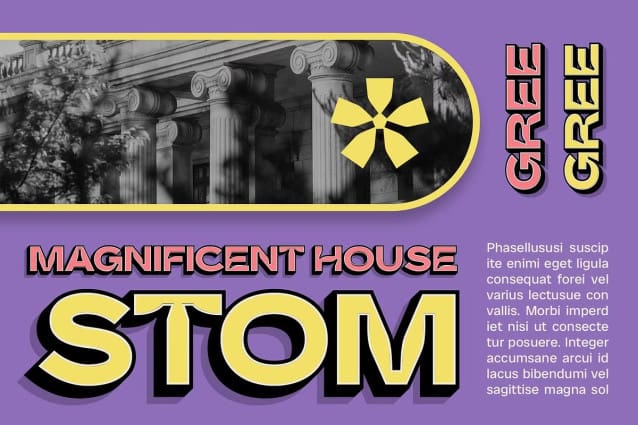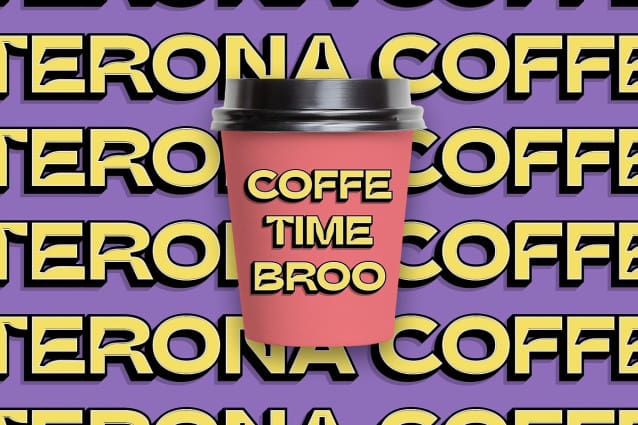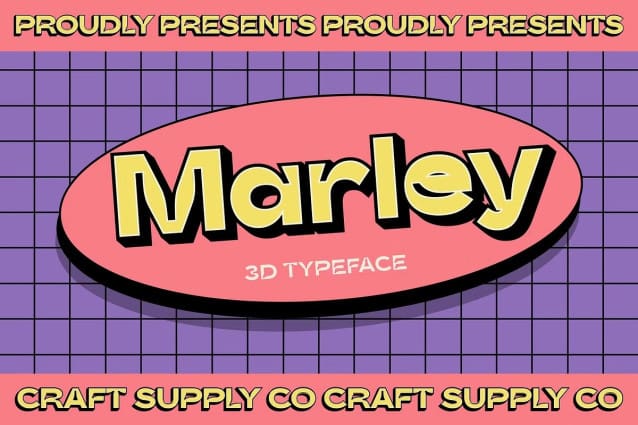
CS Marley 3D Font
CS Marley 3D Font is a font that blends modern sans-serif style with inktrap features and a 3D effect, offering a dimensional and appealing look. This font is ideal for designs that strive for a modern appearance while retaining traditional touches and fine details.
Modern Sans Serif with Inktrap Features CS Marley 3D features a modern sans-serif style with inktrap details that emphasize corners and fine details in the letters. This combination adds depth and character to the font, making it stand out in any design project.
Dimensional and Appealing Look With the addition of a 3D effect, this CS font 3D provides a dimensional and appealing look that is perfect for creating eye-catching headlines, logos, and other design elements. The 3D effect adds depth and visual interest, making your designs pop off the page.
Ideal for Modern Yet Traditional Designs CS Marley 3D is ideal for designs that aim for a modern appearance while retaining traditional touches and fine details. Whether you’re designing branding materials, posters, or digital interfaces, this font can help you achieve a look that is both contemporary and timeless.